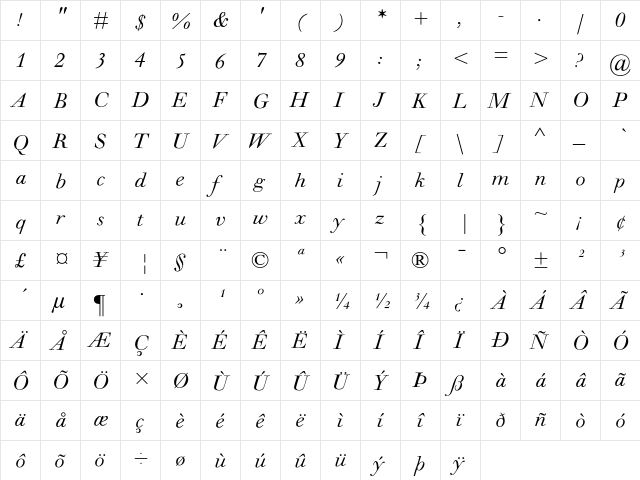
Walbaum Italic
Design Context for Walbaum Typeface
Walbaum offers clean, dependable letterforms without strong stylistic allegiance, making it a practical choice for designers who need flexibility. Its italic angle brings a sense of urgency and motion to the letterforms.
Pro Tip: Try Walbaum for annotation and caption copy alongside an upright companion — the contrast in angle creates a dynamic but ordered typographic system.